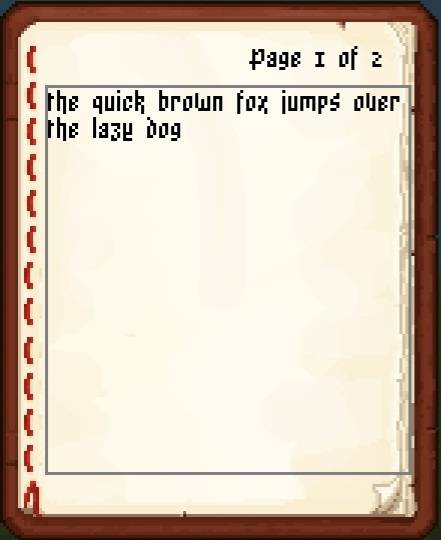
[[Egyptian font]]
Changes the font in a unexpected way
[[Egyptian font]] Whoa a font that looks weird!
As always a Unique texture pack/ font pack that changes the font in a unexpected way!